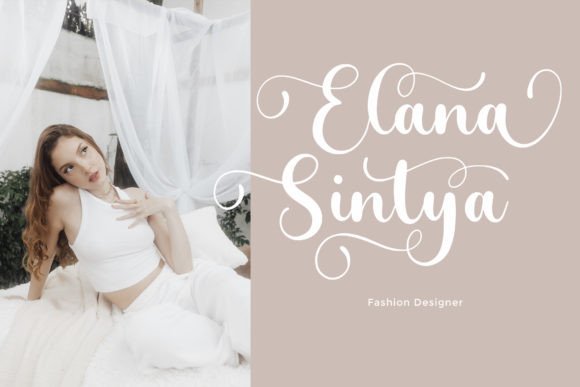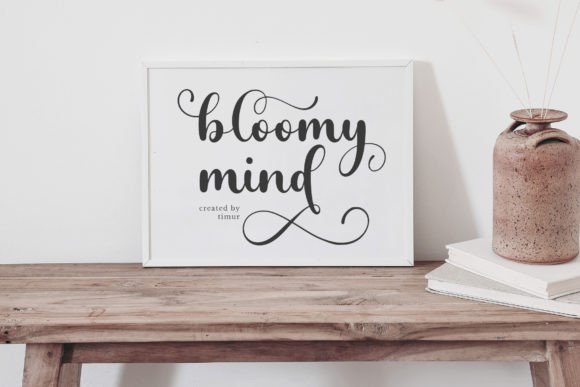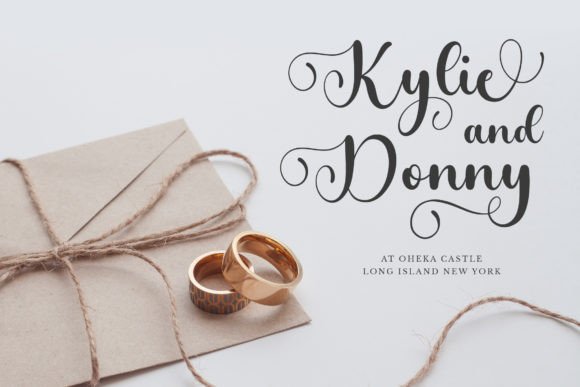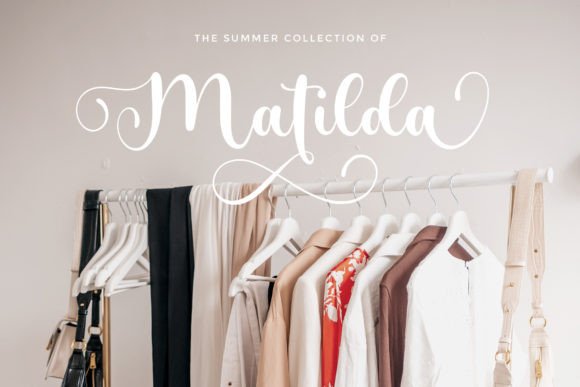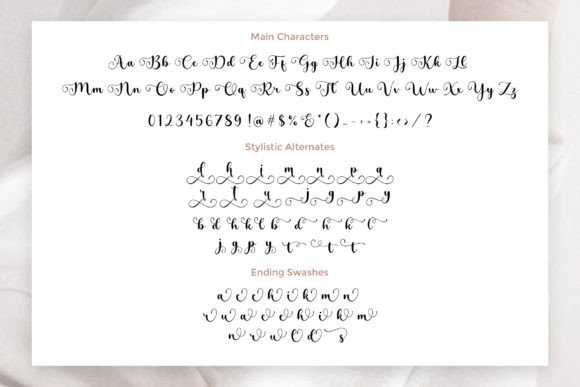
The Magical Delightica Font: Elevate Your Designs with Elegance
I still remember the frustration of working on a design project, pouring my heart and soul into it, only to be held back by a lackluster font choice. It was as if the words on the page were screaming for a makeover, begging for a touch of magic. That’s when I stumbled upon the Delightica font, and it completely transformed my design game. In this article, I’ll share my experience with Delightica, its features, and how to make the most of this beautiful script font.
An Honest Review of Delightica
Delightica is a carefully crafted script font that exudes elegance and sophistication. Here’s what I love about it:
- ✨ Elegant and fluid strokes: Delightica’s script style is reminiscent of calligraphy, making it perfect for creative projects that require a touch of luxury.
- ✅ Highly versatile: This font can be used for a wide range of projects, from Instagram posts to DIY crafts, and even professional branding materials.
- 💫 OpenType features: Delightica comes with a range of OpenType features, including glyphs and stylistic alternates, which allow for endless customization options.
While Delightica is an amazing font, it’s not without its quirks:
- 🤔 Limited use in body text: Due to its script nature, Delightica may not be the best choice for lengthy body text. It’s better suited for headings, titles, or short paragraphs.
- ⚠️ Requires careful kerning: As with any script font, kerning can be a bit tricky. Make sure to adjust the spacing to ensure optimal readability.
The Story Behind Delightica
Delightica was created by a team of designers who wanted to craft a font that would bring a touch of magic to creative projects. Inspired by the elegance of calligraphy and the versatility of modern typography, Delightica was born. The design team poured their hearts into crafting a font that would be both beautiful and functional, with a range of OpenType features to make it adaptable to various design needs.
| Font Name | Delightica Font |
| Author | Timur type |
| What is Delightica best used for? | Delightica is perfect for creative projects that require a touch of elegance, such as DIY crafts, Instagram posts, and professional branding materials. |
| Does Delightica come with OpenType features? | Yes, Delightica includes a range of OpenType features, such as glyphs and stylistic alternates, to enhance your design work. |